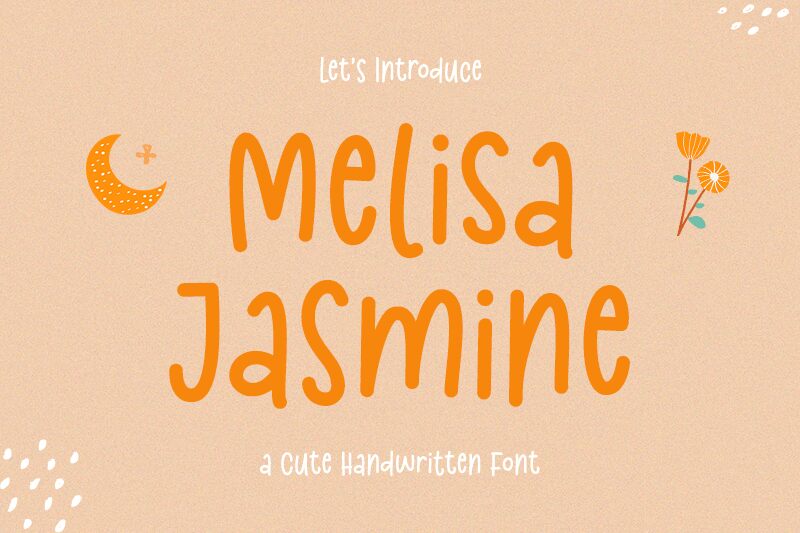
Melisa Jasmine, designed by Kotak Kuning Studio, is a delightful and whimsical font that adds a touch of cuteness to any project. With its semi-light weight and condensed width, this handwritten typeface is perfect for creating charming designs that stand out.
Use Melisa Jasmine for children's books, playful logos, adorable invitations, or even to add a touch of sweetness to your social media posts. Let this endearing font bring joy and imagination to your creative endeavors.